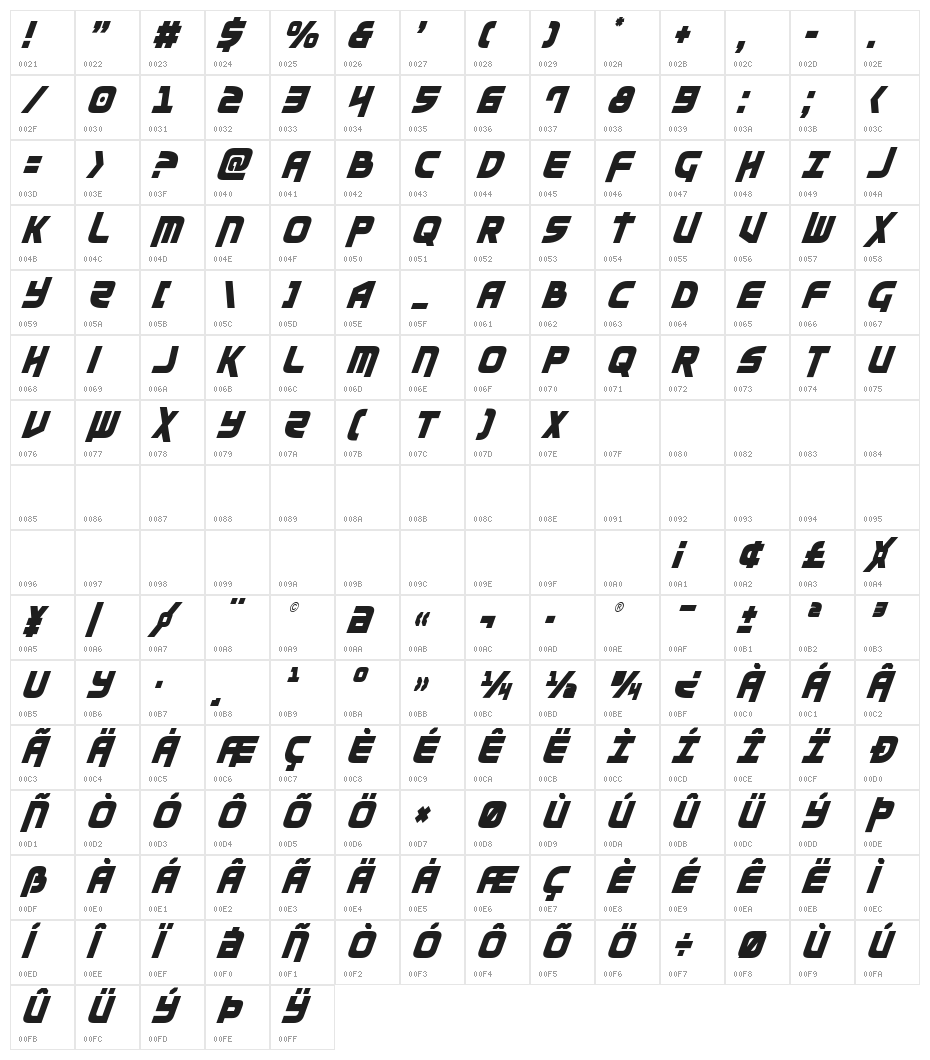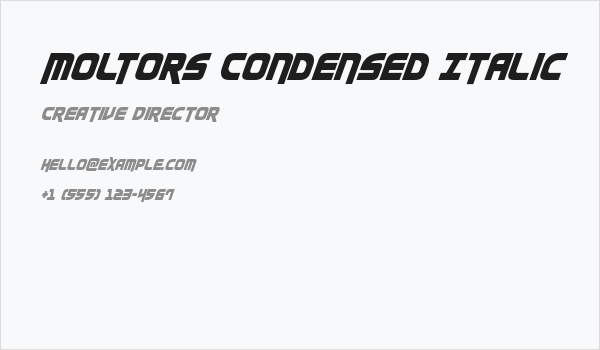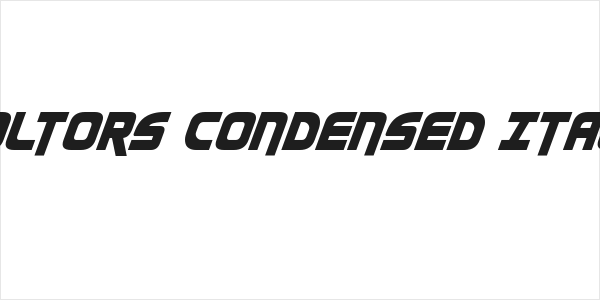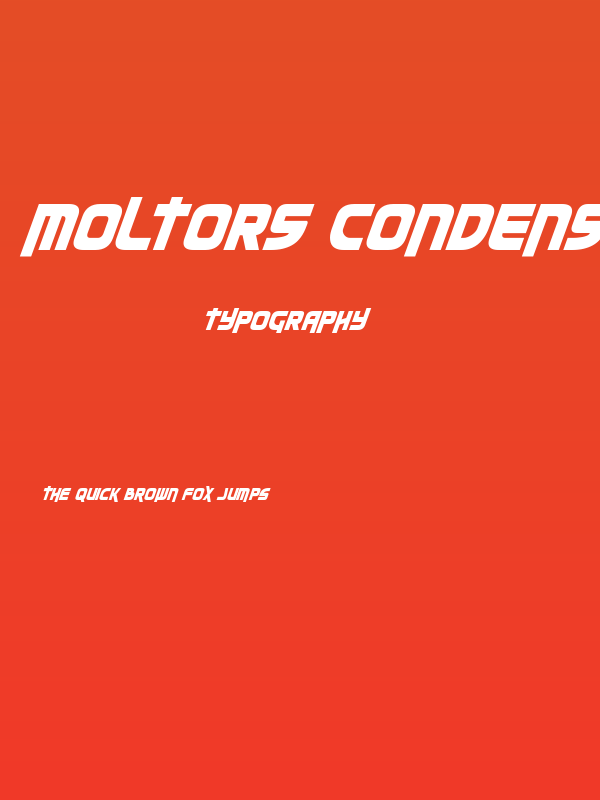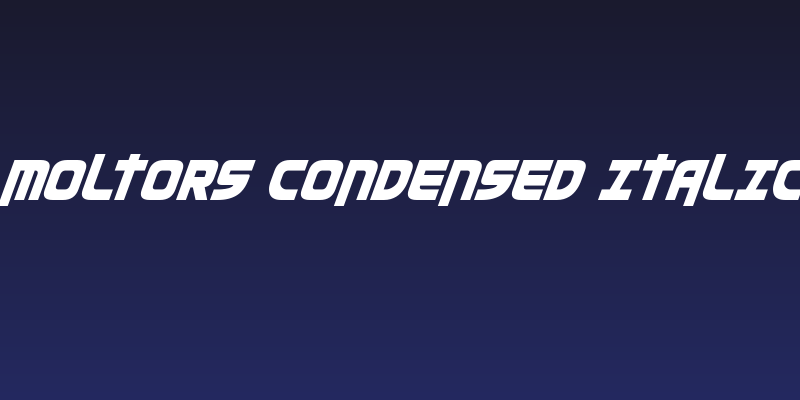
Moltors Condensed Italic Font
Moltors Condensed Italic Description
This font features a bold and dynamic design with a distinctly modern and futuristic aesthetic. The characters are condensed and italicized, giving them a sleek and streamlined appearance. The strokes are thick and consistent, contributing to a strong visual impact. The angular and geometric shapes of the letters add a sense of movement and energy, making it suitable for attention-grabbing headlines or branding materials. The font includes a full set of uppercase and lowercase letters, numbers, and a variety of special characters, ensuring versatility in design applications.
Proposed ProjectsIdeal for use in technology branding, sports team logos, dynamic posters, and modern advertising campaigns.